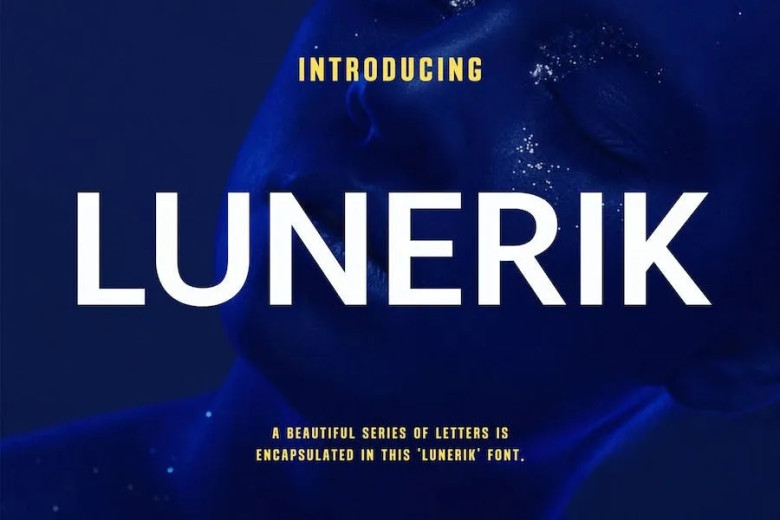
Lunerik Font
Lunerik Font is a striking and dynamic typeface created from an amalgamation of ideas from diverse sources, featuring precisely adjusted proportions using gentle contour lines and soft contrasts for precise results.
These pleasing shapes give Lunerik font an aesthetically pleasing appearance without compromising elegance or simplicity, therefore making this font suitable for graphic design applications like brochures, videos and advertising as well as logos, branding for advertising magazines layout poster templates publications games etc.
Lunerik Sans Serif Font